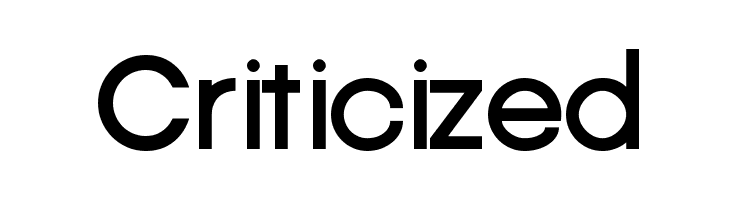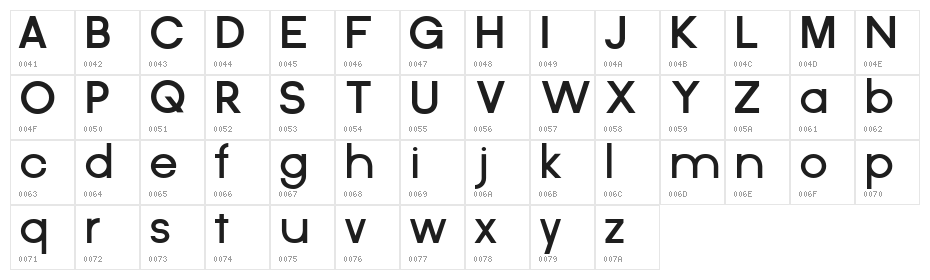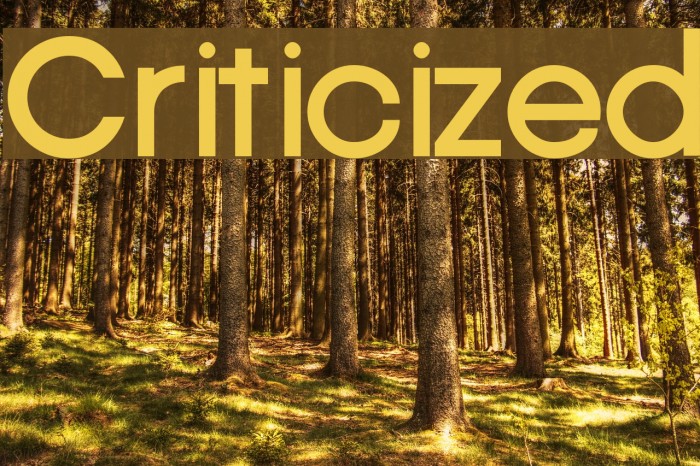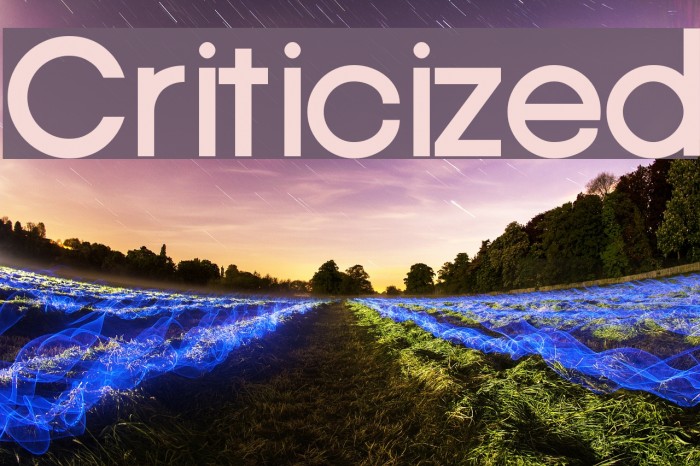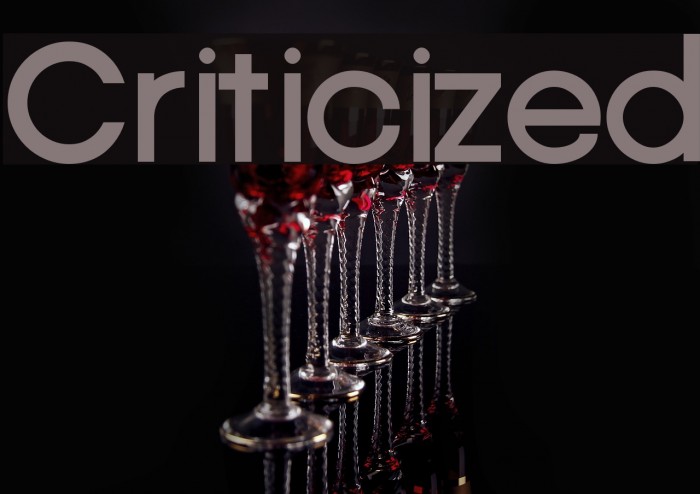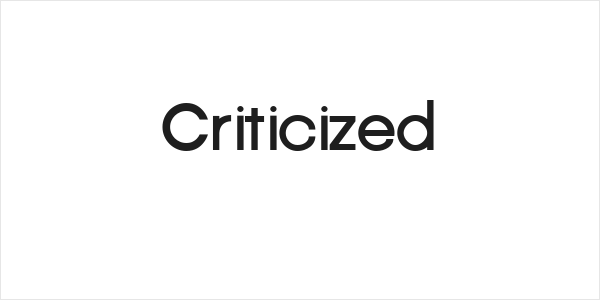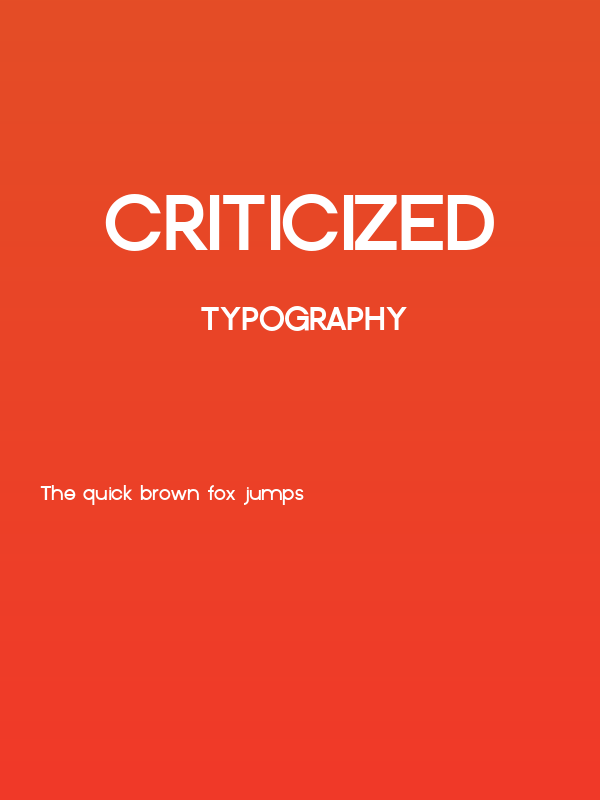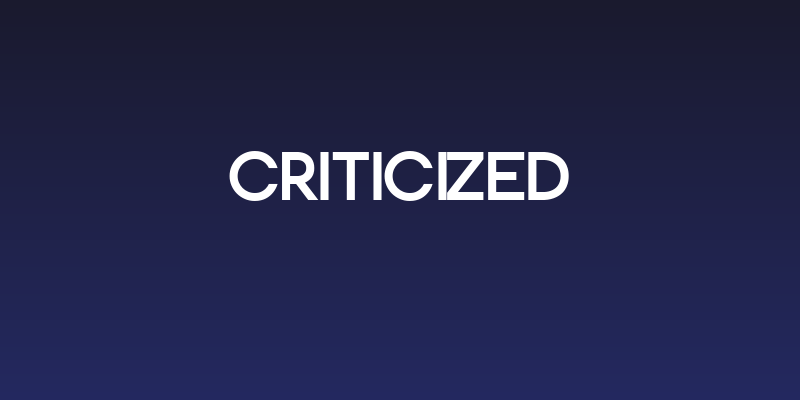
Criticized Font
Criticized Description
This font features a clean and modern sans-serif style with uniform stroke widths and a geometric structure. The characters are well-balanced, offering a harmonious appearance that is both professional and approachable. The uppercase and lowercase letters maintain a consistent height and width, contributing to a cohesive look. The design is minimalistic, with smooth curves and straight lines that enhance readability. This font is versatile, suitable for a wide range of applications from digital to print media. Its simplicity and clarity make it an excellent choice for conveying information effectively.